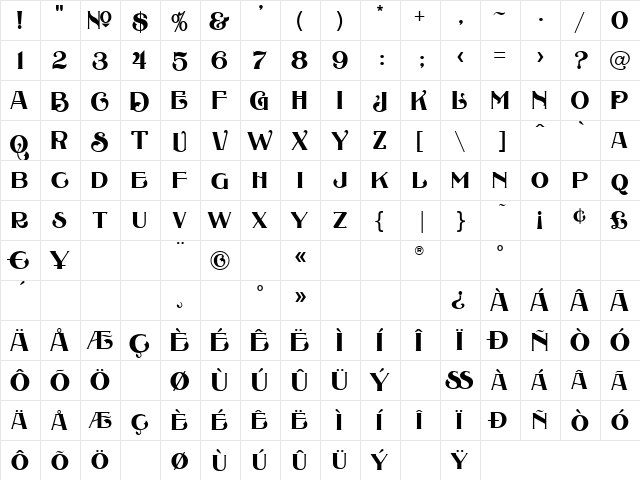
LHF Rawson & Evans Regular
Design Context for LHF Rawson & Evans Typeface
LHF Rawson & Evans is a composed and adaptable typeface that performs quietly and consistently across a wide range of design contexts.